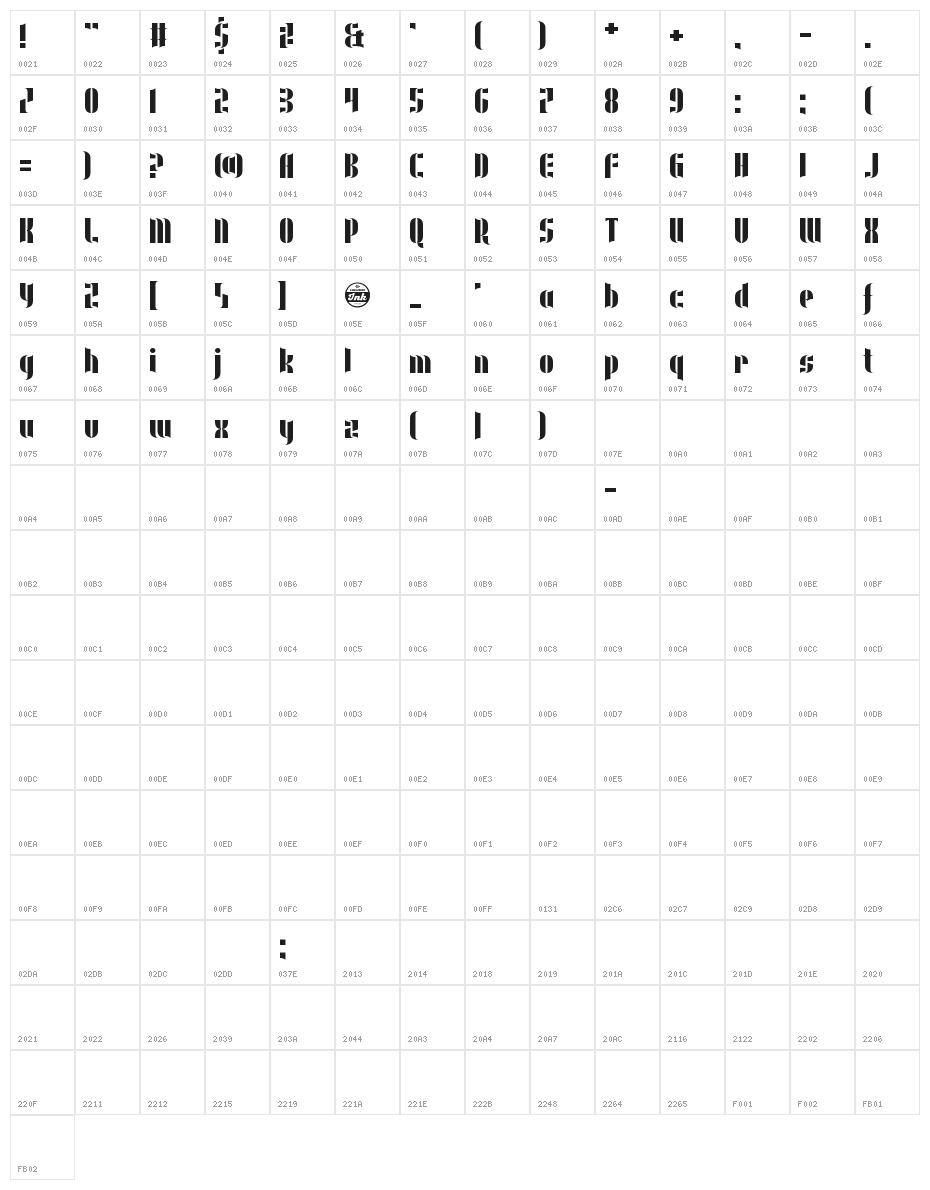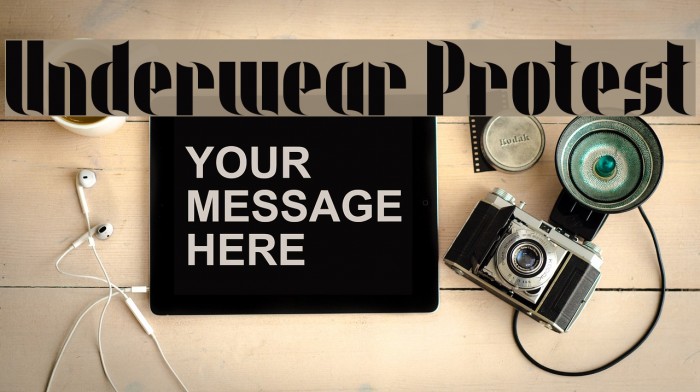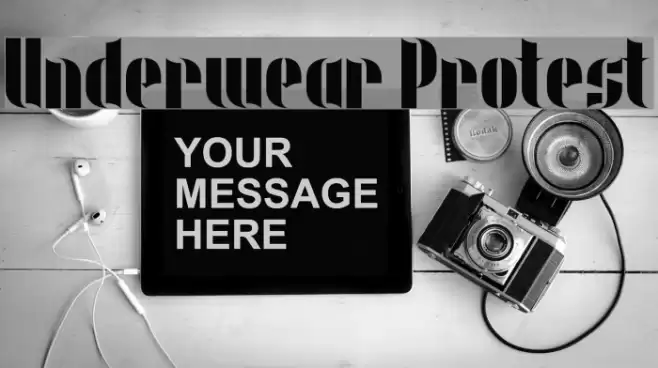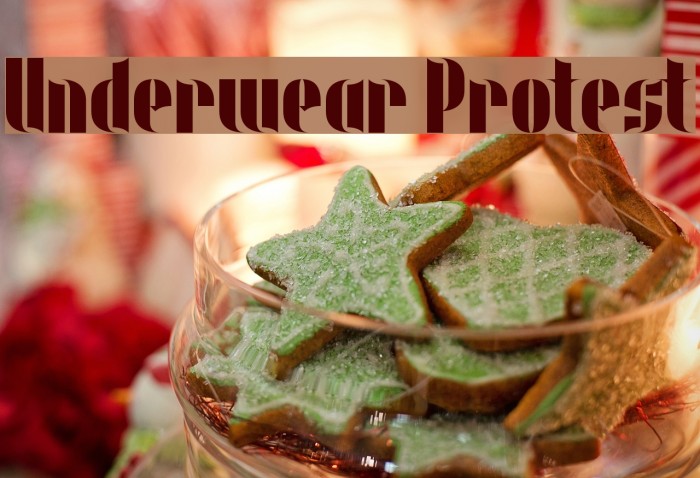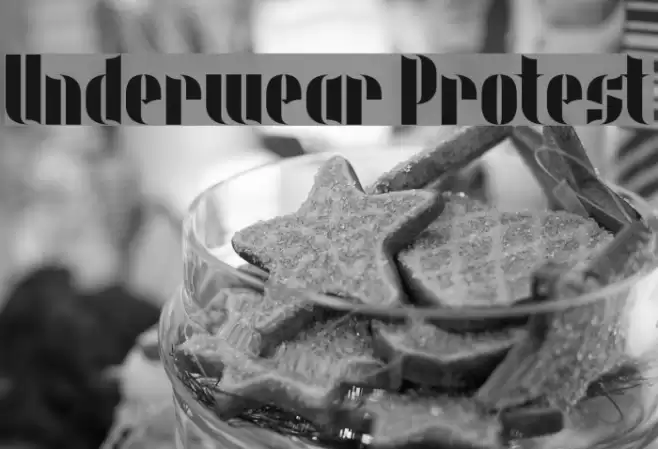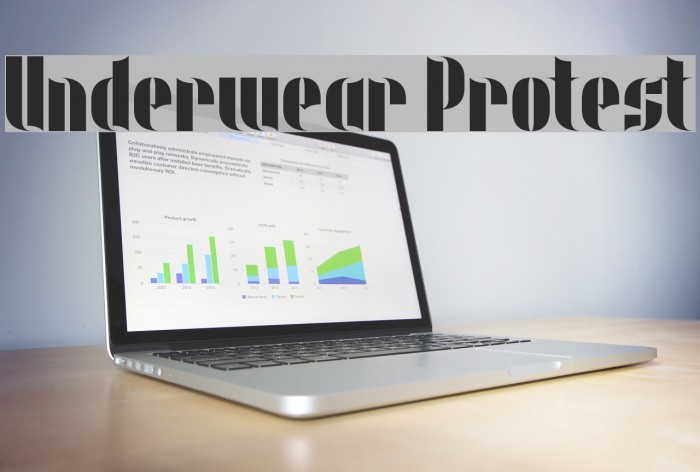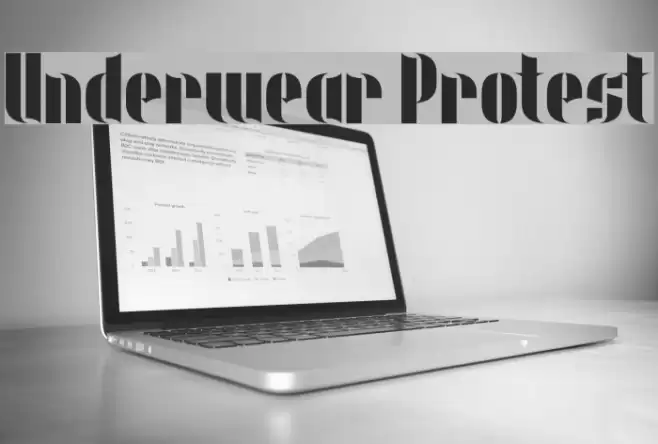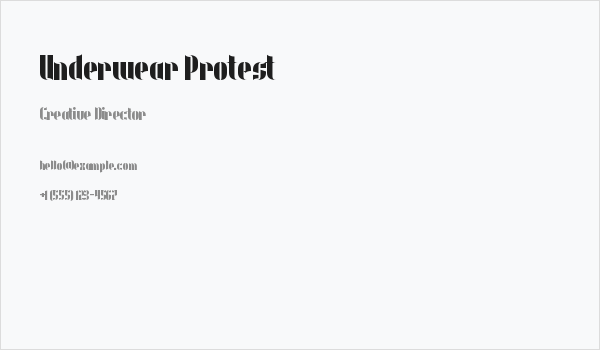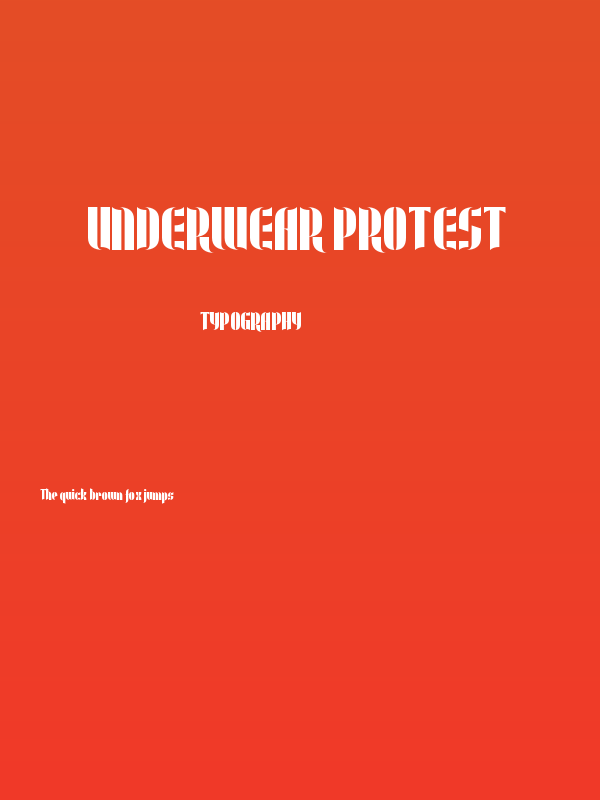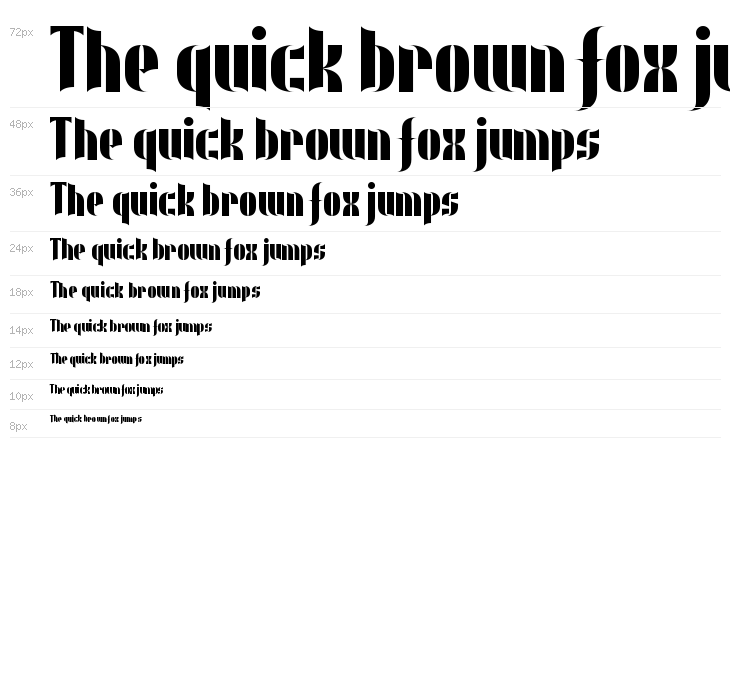
Underwear Protest Font
Underwear Protest Description
This font features a bold and striking design with a strong blackletter influence. The characters are highly stylized, with sharp angles and a dramatic presence. The uppercase letters are particularly prominent, showcasing a gothic aesthetic that is both modern and traditional. The lowercase letters maintain the same boldness, ensuring consistency throughout the typeface. Numbers and special characters are equally bold, making them stand out. This font is ideal for creating impactful headlines or logos that require a touch of elegance and authority.
| Overall Style | Modern Gothic |
| Proposed Projects | Perfect for branding, posters, album covers, and any project needing a strong, gothic touch. |